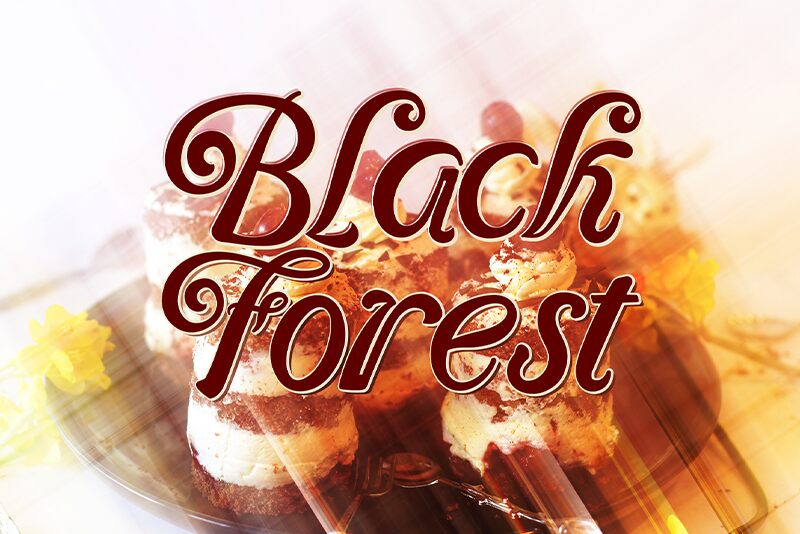
Black Forest, a display font designed by Dedi Mujiono, features a whimsical and curly calligraphy style that exudes elegance and charm. With its semi-light weight, this font is perfect for adding a touch of sophistication to wedding invitations, greeting cards, and other formal events. It can also be used on branding materials for businesses seeking a more playful and creative approach to their image. Black Forest's unique aesthetic lends itself well to projects that require a touch of personality while maintaining professionalism. Give your designs the edge they need with Black Forest!
Black Forest
Dedi Mujiono